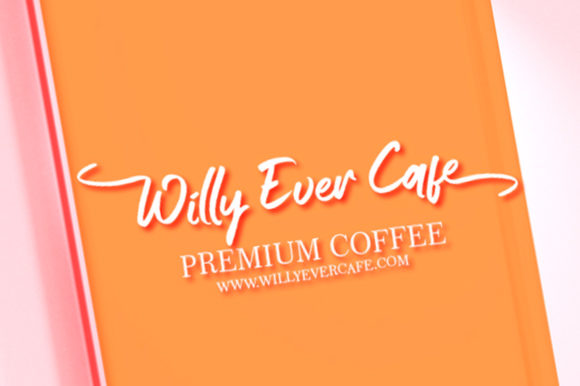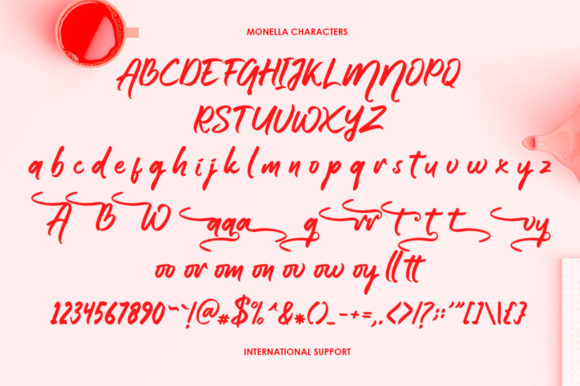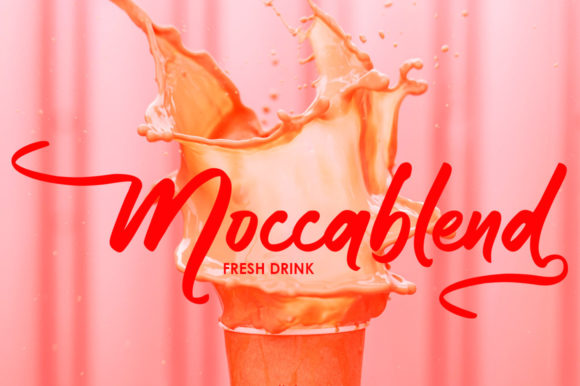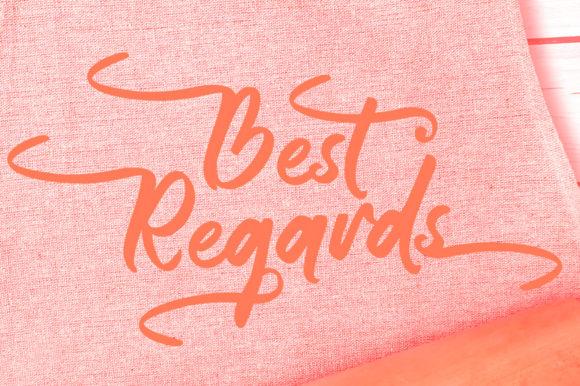
Introduction to Monella Font
Monella is a stylish and dainty script font.
It is suitable for any projects such as: logos, branding projects, label, photography, watermark, special events, and all your other lovely projects that need a beautiful script taste This font is PUA encoded which means you can access all glyphs and swashes with ease.